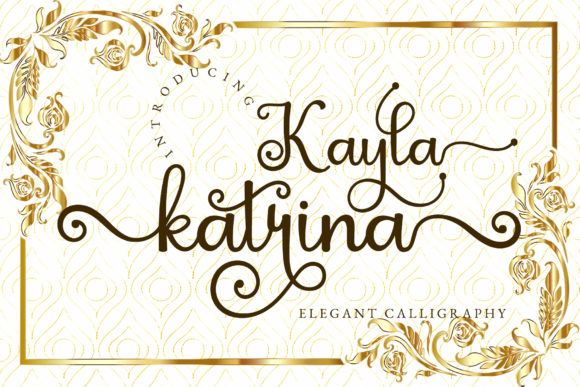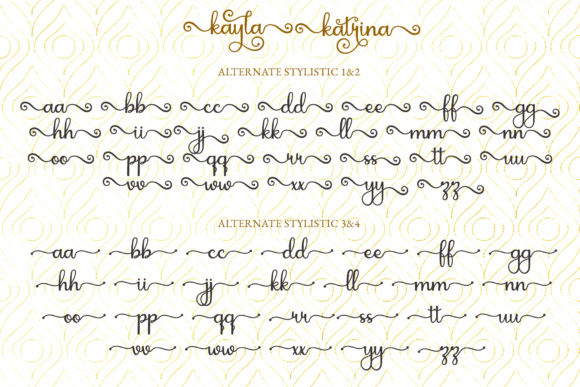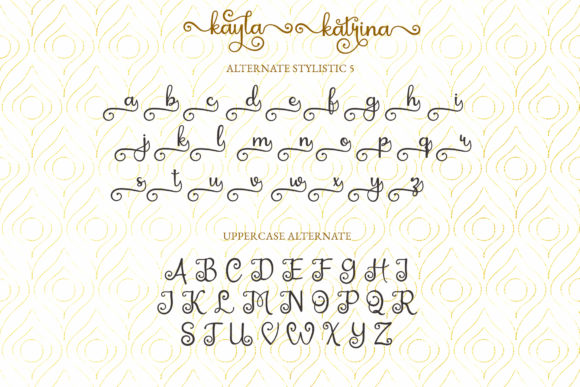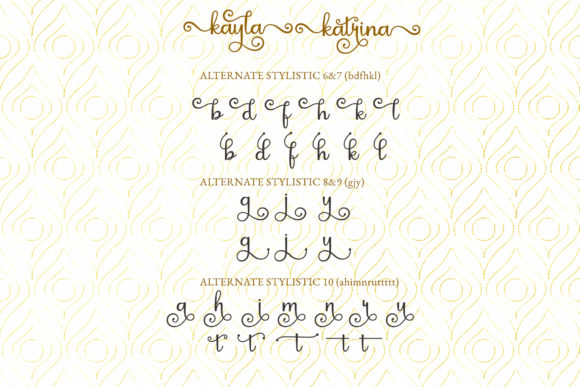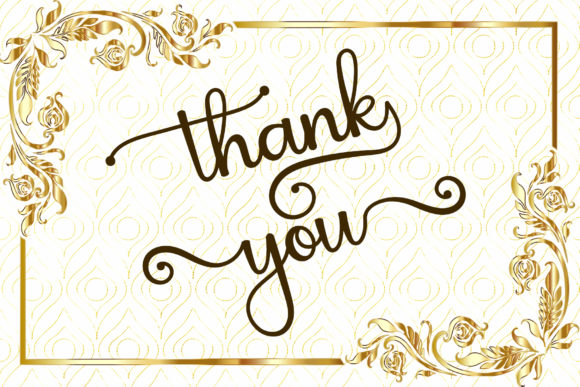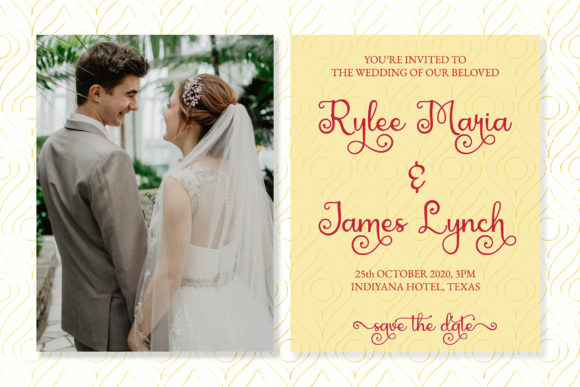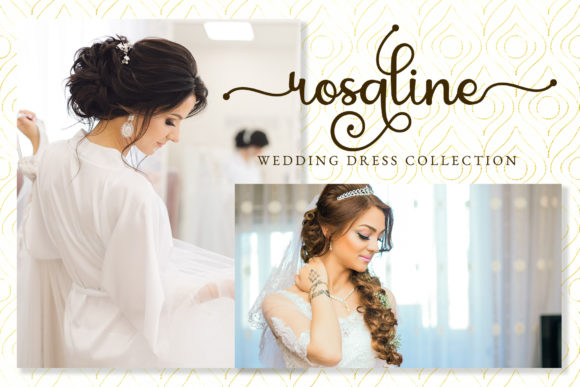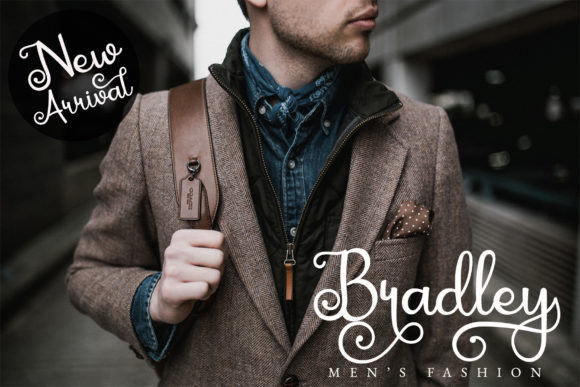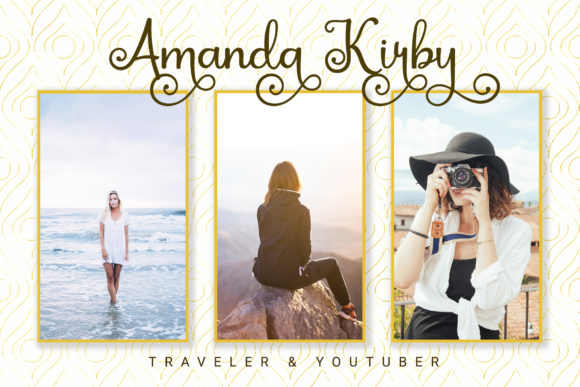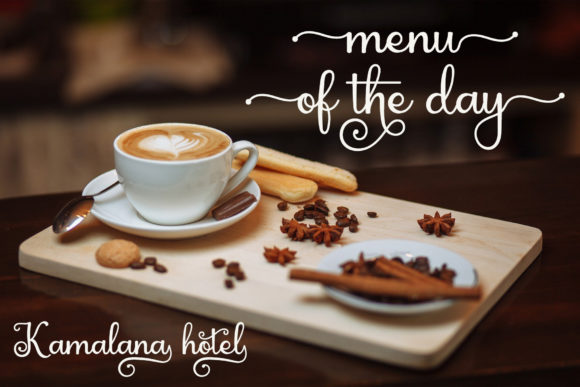
Kayla Katrina Font
About Kayla Katrina Font
Kayla Katrina is beautiful script that represents elegance and modernity. Fall in love with its playful swashes.